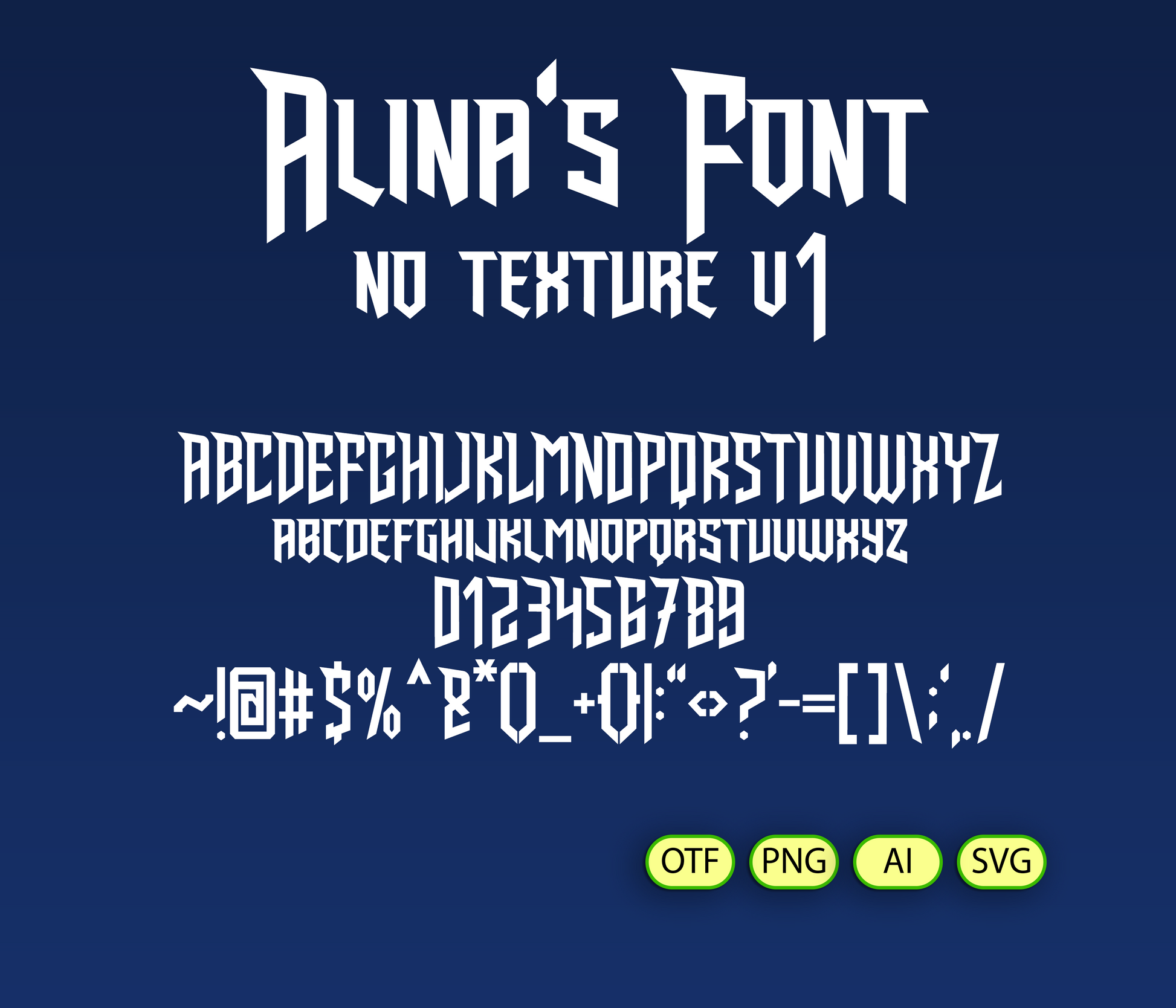
Devil's Tearful Battle Font
Step into the dramatic world of supernatural demon hunters with our Devil's Tearful Battle font, capturing the essence of stylish gothic action and dark fantasy adventure. Perfect for game enthusiasts, graphic novel creators, gothic event organizers, and designers, this font brings the dynamic, sword-slashing spirit of legendary demon slayers to your projects. Create event invitations, themed merchandise, or digital content with the high-stakes energy of this epic otherworldly adventure.
Our Devil's Tearful Battle font features bold, sharp lines and gothic characters reflecting the intense supernatural action and stylish combat of legendary demon hunters. Ideal for:
Our Devil's Tearful Battle font includes textured and non-textured variants, ensuring compatibility with all software, including Canva. This feature allows easy incorporation into designs for users of all skill levels.
Our font pays tribute to the legendary gothic action series, empowering your designs with its intense and stylish spirit. Whether crafting promotional materials, designing merchandise, or adding a dynamic touch to personal projects, this font communicates the bold essence of supernatural combat and demon hunting. Ready to inject gothic action into your creations? This font is your key to exciting, impactful design.